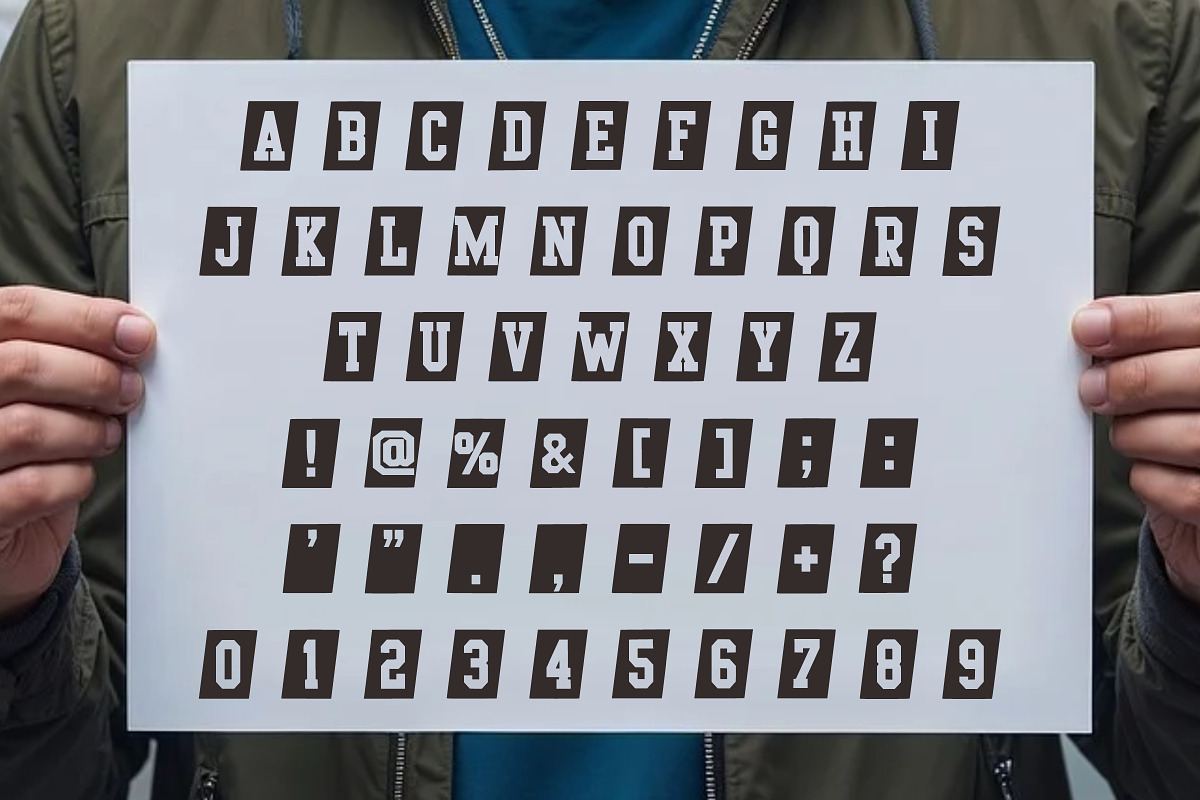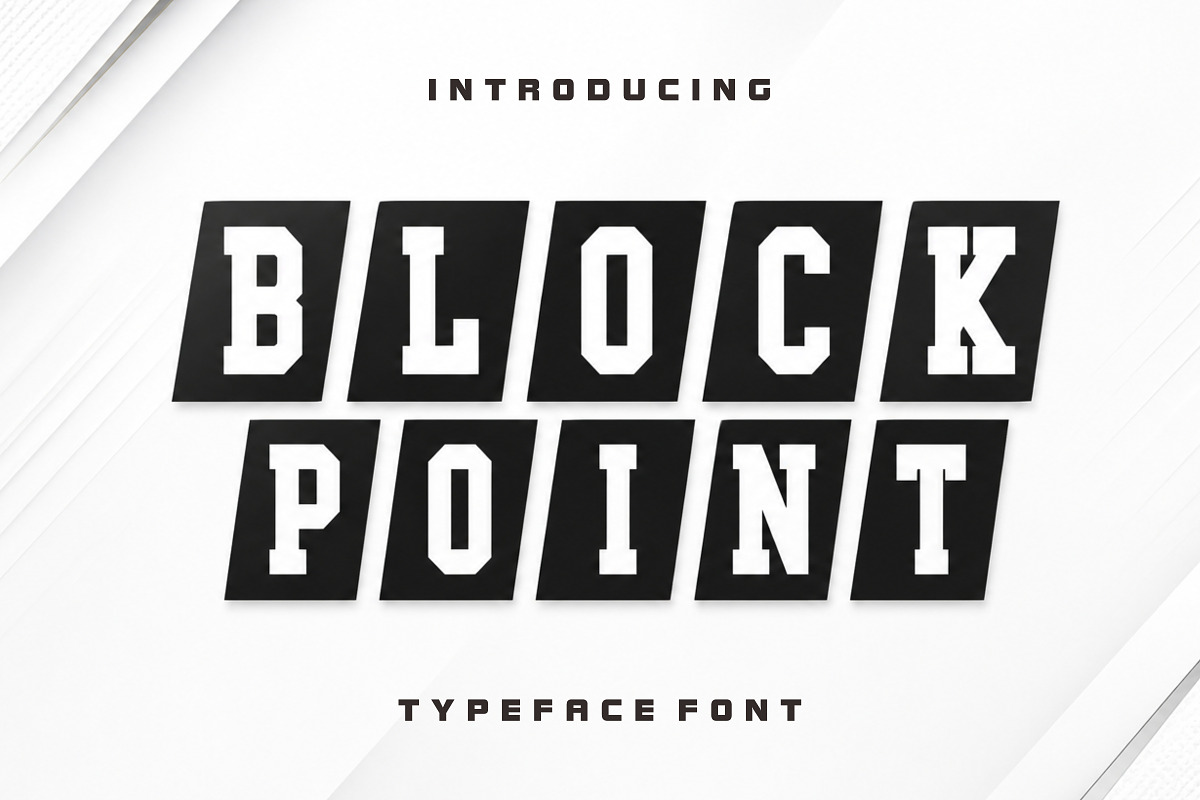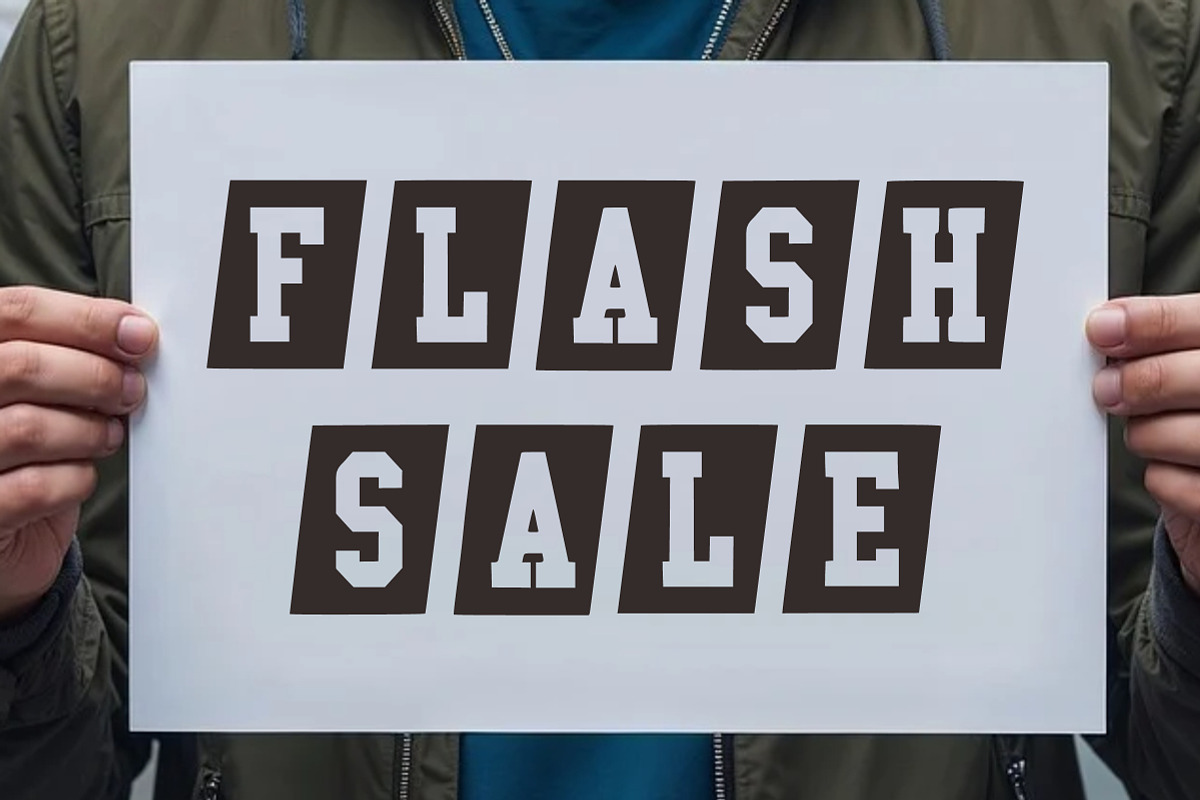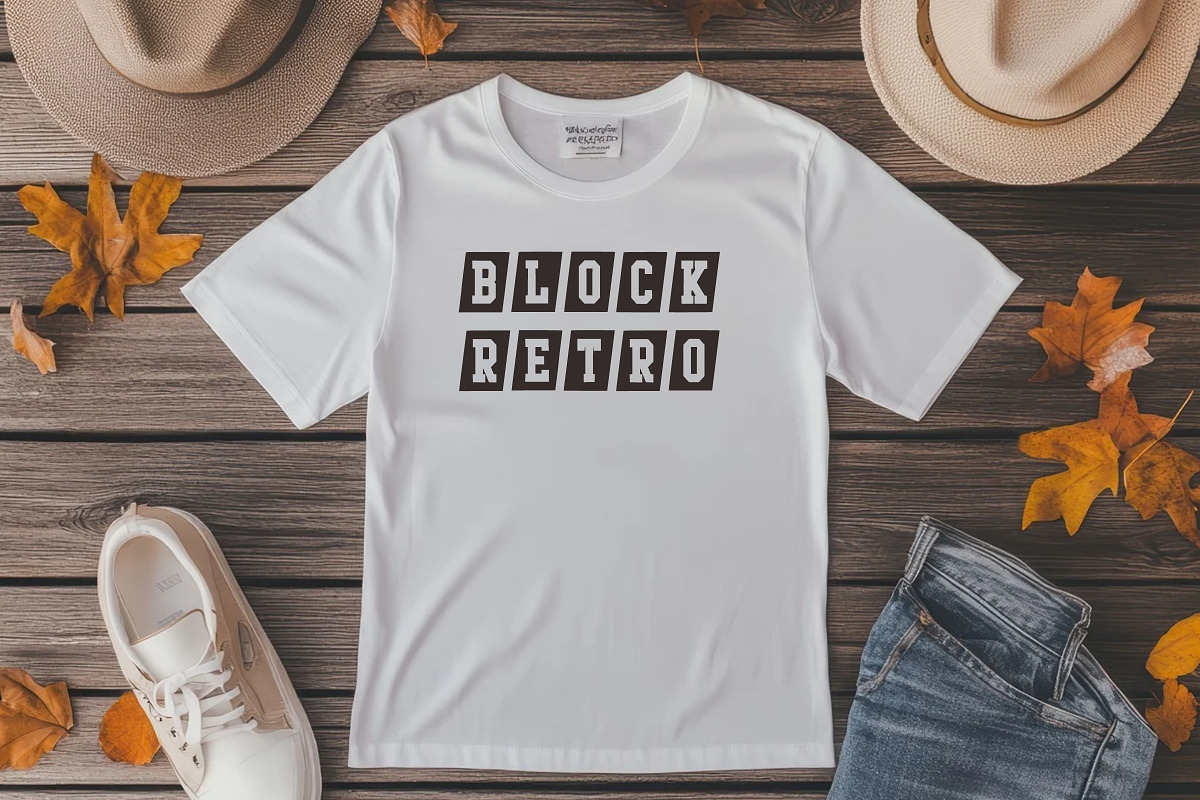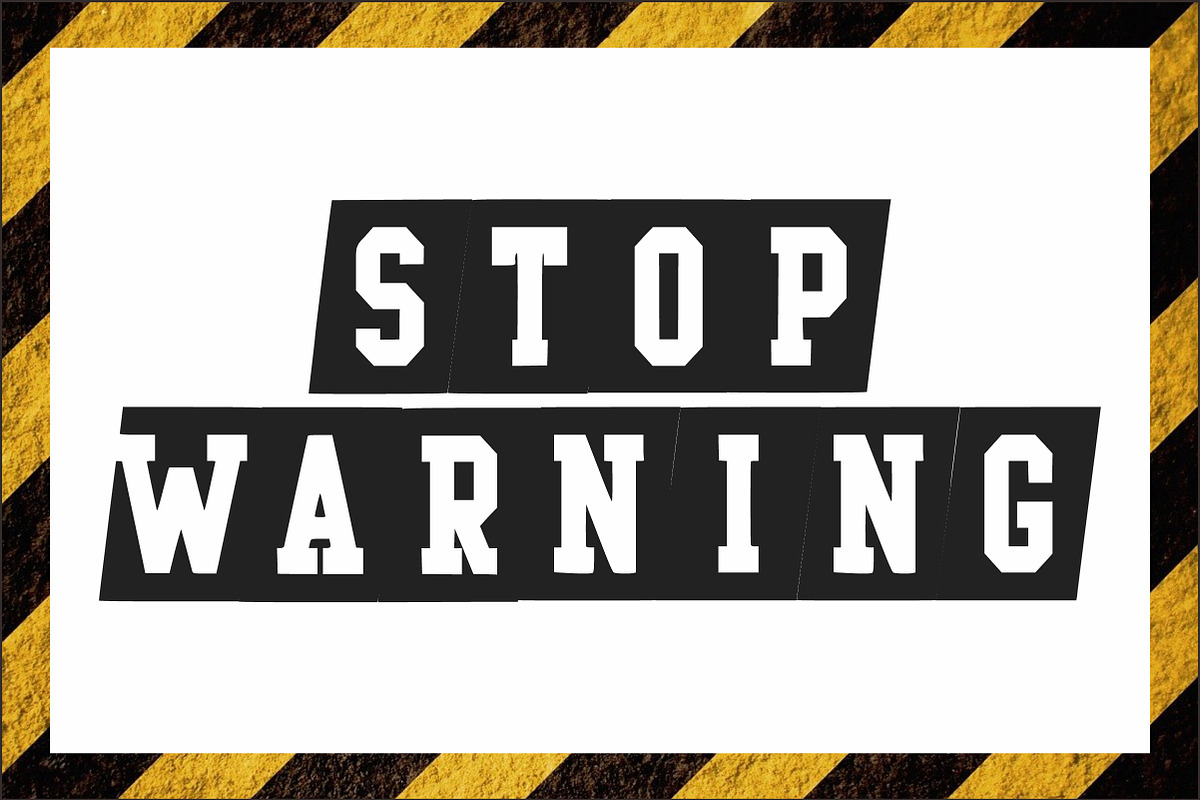
Block Point – Bold Varsity Sports
Block Point is a bold varsity-style display font inspired by classic athletic lettering, college sports branding, and competitive team graphics. Featuring strong geometric shapes, sharp edges, and powerful character construction, this typeface delivers a confident and energetic look for sports-related projects.
Perfect for logos, team jerseys, merchandise, posters, gaming graphics, headlines, social media content, apparel designs, and branding projects that require a strong visual impact.
Perfect For: • Sports Branding • Team Logos • Jersey Designs • College & Varsity Projects • Athletic Merchandise • Gaming Graphics • Posters & Headlines • Streetwear Designs • Social Media Graphics • Modern Display Typography
Bring strength, energy, and competitive spirit to your designs with Block Point.